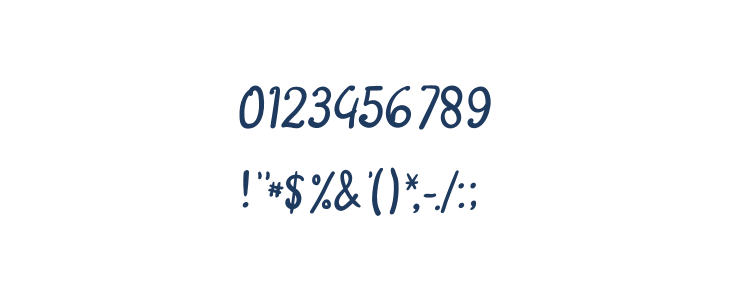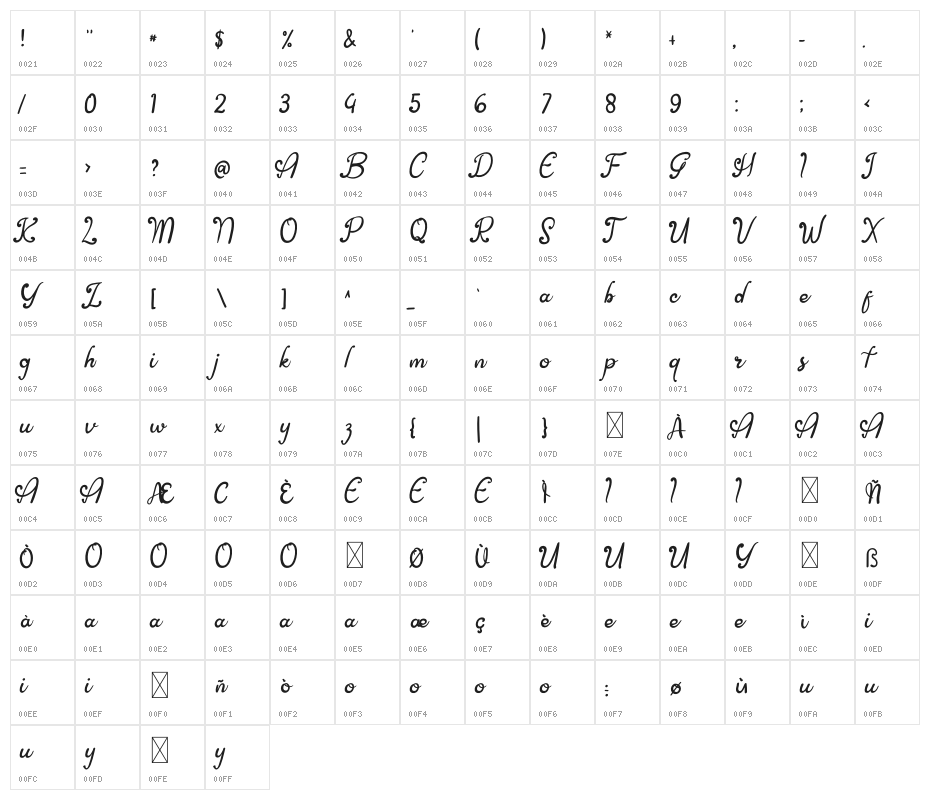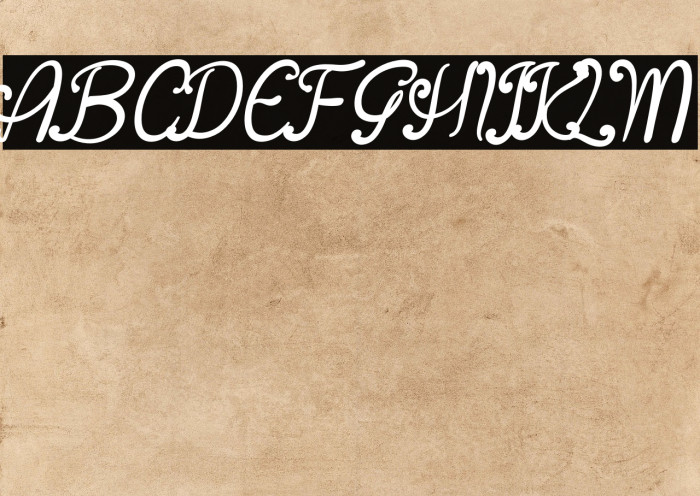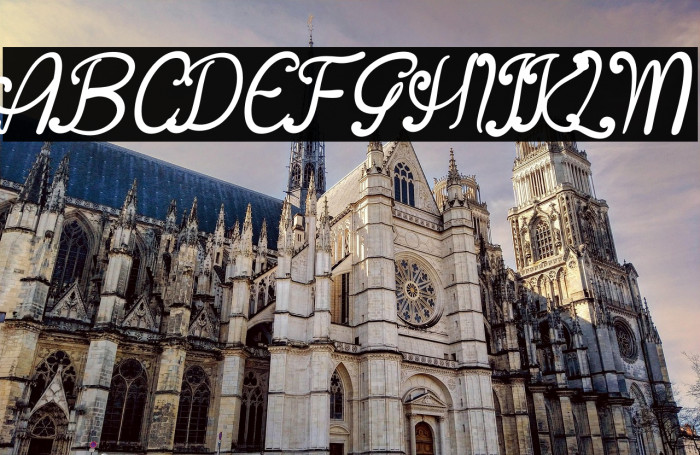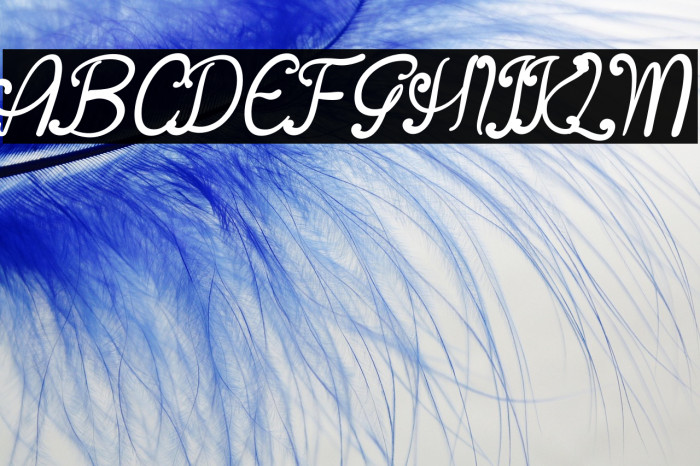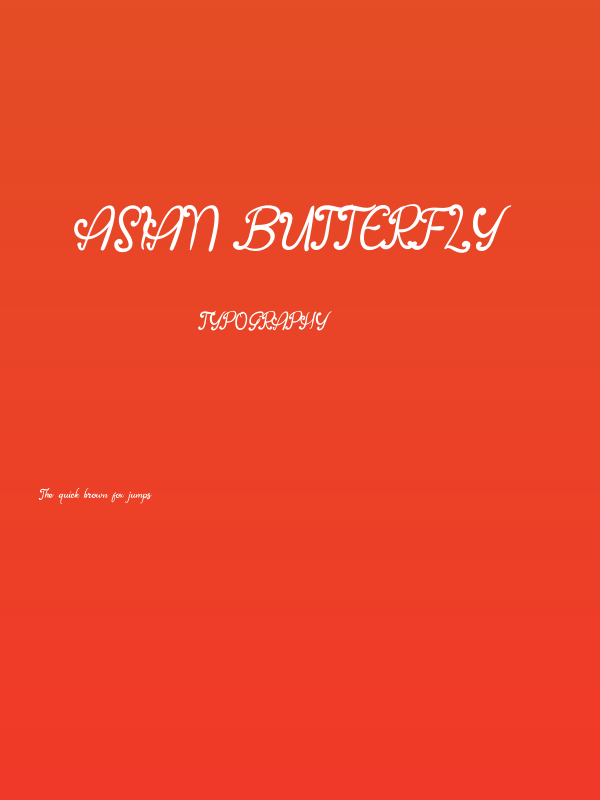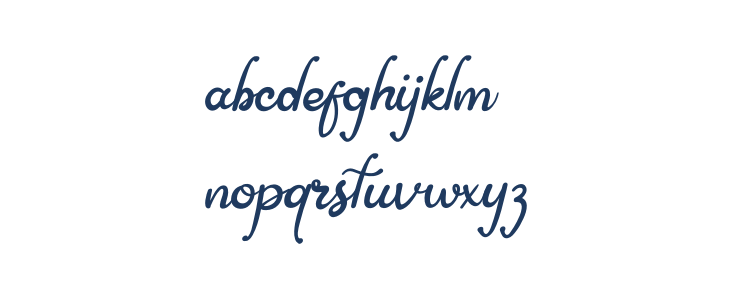
Asian Butterfly Font
✎ Script
Asian Butterfly Description
This font features an elegant and flowing script style, characterized by its smooth, cursive strokes and graceful curves. The uppercase letters are bold and slightly ornate, with a consistent slant that adds a sense of movement and fluidity. The lowercase letters maintain a harmonious balance with the uppercase, offering a more delicate and refined appearance. The numerals are clear and easily readable, complementing the overall aesthetic. Special characters are thoughtfully designed to match the script's elegance, making this font suitable for a variety of creative applications.
| Overall Style | Elegant |
| Use Case | Logos, Invitations, Decorative text |
| Proposed Projects | Ideal for wedding invitations, greeting cards, branding, and elegant signage. |